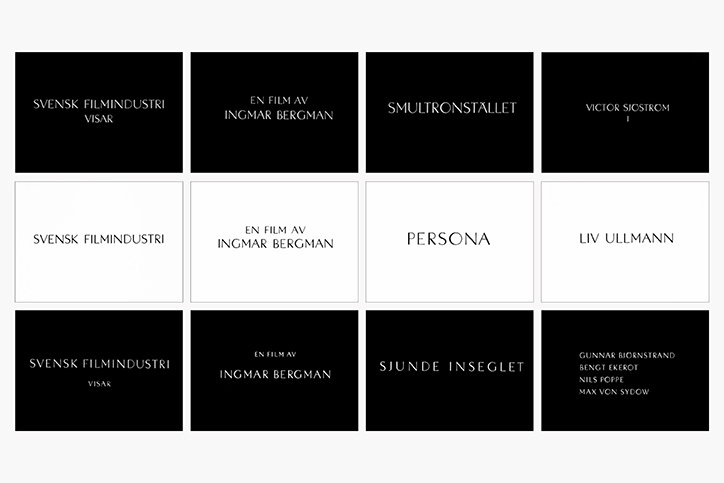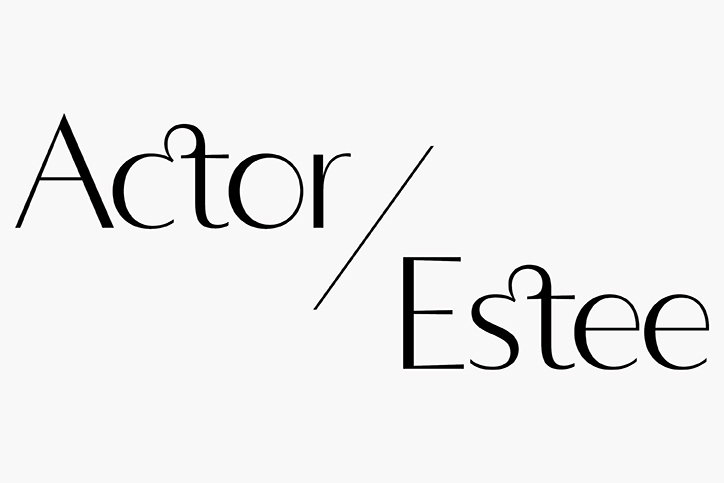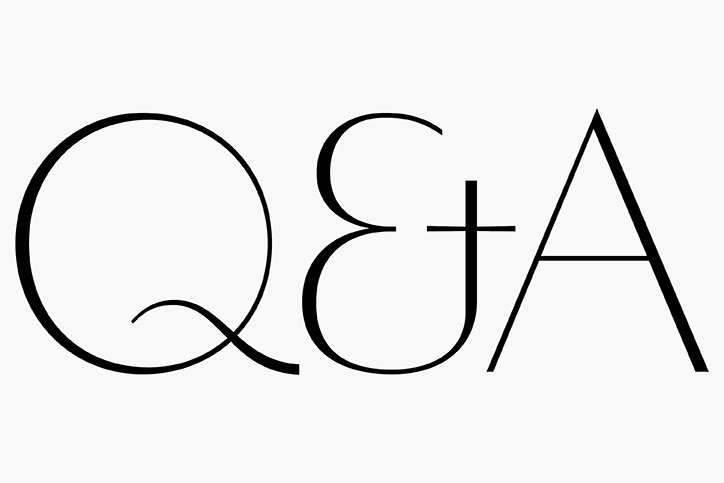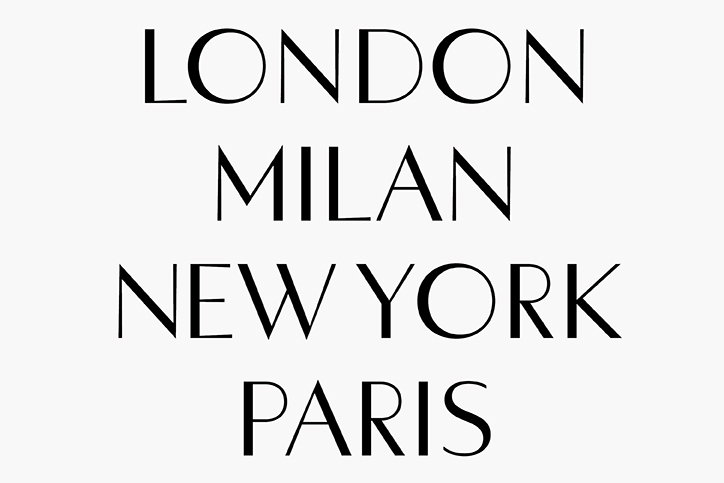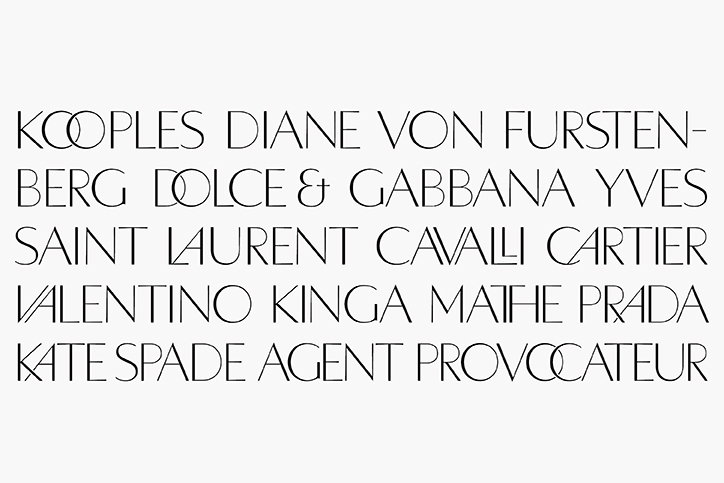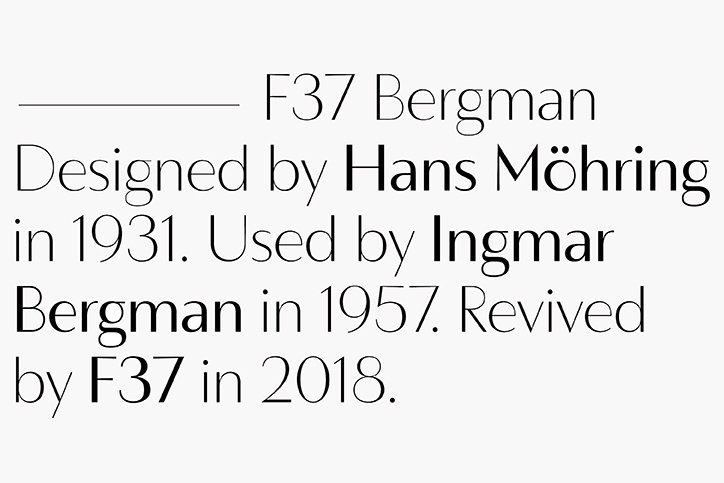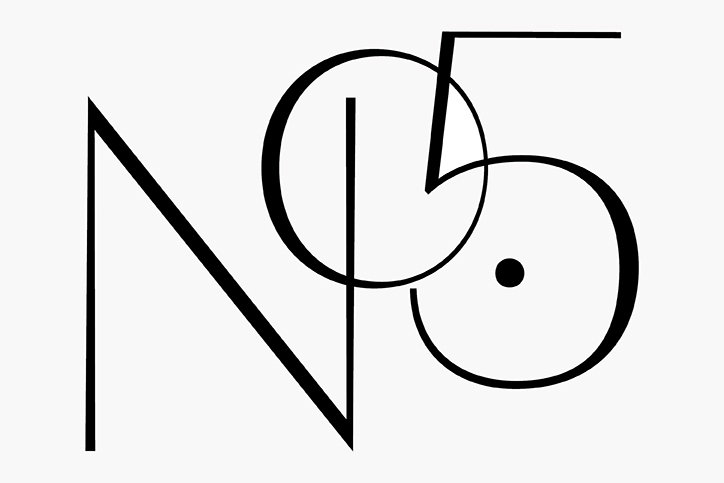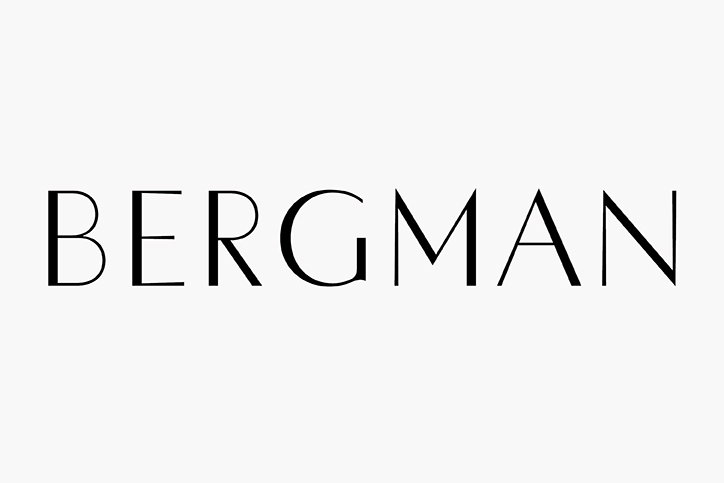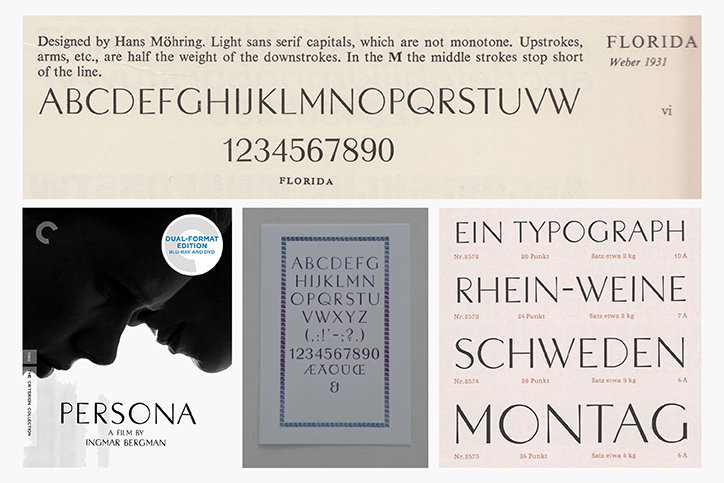
Rick Banks revives Möhring’s Florida typeface made famous by Ingmar Bergman
Face37, the type foundry founded by Rick Banks, has revised and digitalised Hans Möhring’s Florida typeface. Now available in a range of weights and in lowercase, Rick has updated the font in four weights and made it available for use. “We loved Möhring’s juxtaposition of the tapered stems and the geometric thick and thin lines, making it perfect for luxurious branding and editorial work,” says Rick. “We’ve also injected a bit of modernity into the design by creating numerous ‘Herb Lubalin’ style alternates, as well as stylistic diacritics.” It’s Nice That caught up with the designer to learn more about the project and its origins.
What inspired you to revisit Florida? Where did you encounter it and why did it make such an impact?
I first encountered Florida whilst watching Ingmar Bergman’s classic 1957 film Wild Strawberries. After watching Persona and The Seventh Seal, I soon realised Florida also featured in his other two seminal films. Bergman presented the title credits in a minimal and stark way — always in black or white. This really hit a chord with me. I also fell in love with Möhring’s asymmetric O too.
How did you go about making sure you had a full set of reference characters and glyphs?
As well as using screengrabs from the Bergman DVDs, I tracked down the original 1931 specimen of Hans Möhring’s Florida font in an old ’50s book called Encyclopedia of Typefaces by Jaspert, Berry & Johnson. This had the original uppercase A-Z and numerals. I don’t think the full punctuation set was ever designed, so that has been drawn from scratch.
What was the process of updating the typeface? What digital or analogue procedures were involved?
First and foremost, I wanted the font to have an accompanying lowercase. After the uppercase was scanned and digitalised it was case of drawing lowercase letterforms that had harmony with the original design. The original design also only had one weight — I wanted the revival to have multiple weights. The font also features Opentype stylistic diacritics as seen in Bergman’s films.
How did you decide/alight upon the Lubalin-style ligatures? How did you make sure that the style remained coherent?
I wanted to bring something new to the revival and make it modern. Designing the Opentype ligatures was also an ode to the original uppercase and makes the font really versatile. Although their style is coherent, I think using the ligatures creates a different look and feel — which I like.
Where do you hope to see the typeface used?
F37: Florida
F37: Florida reference material